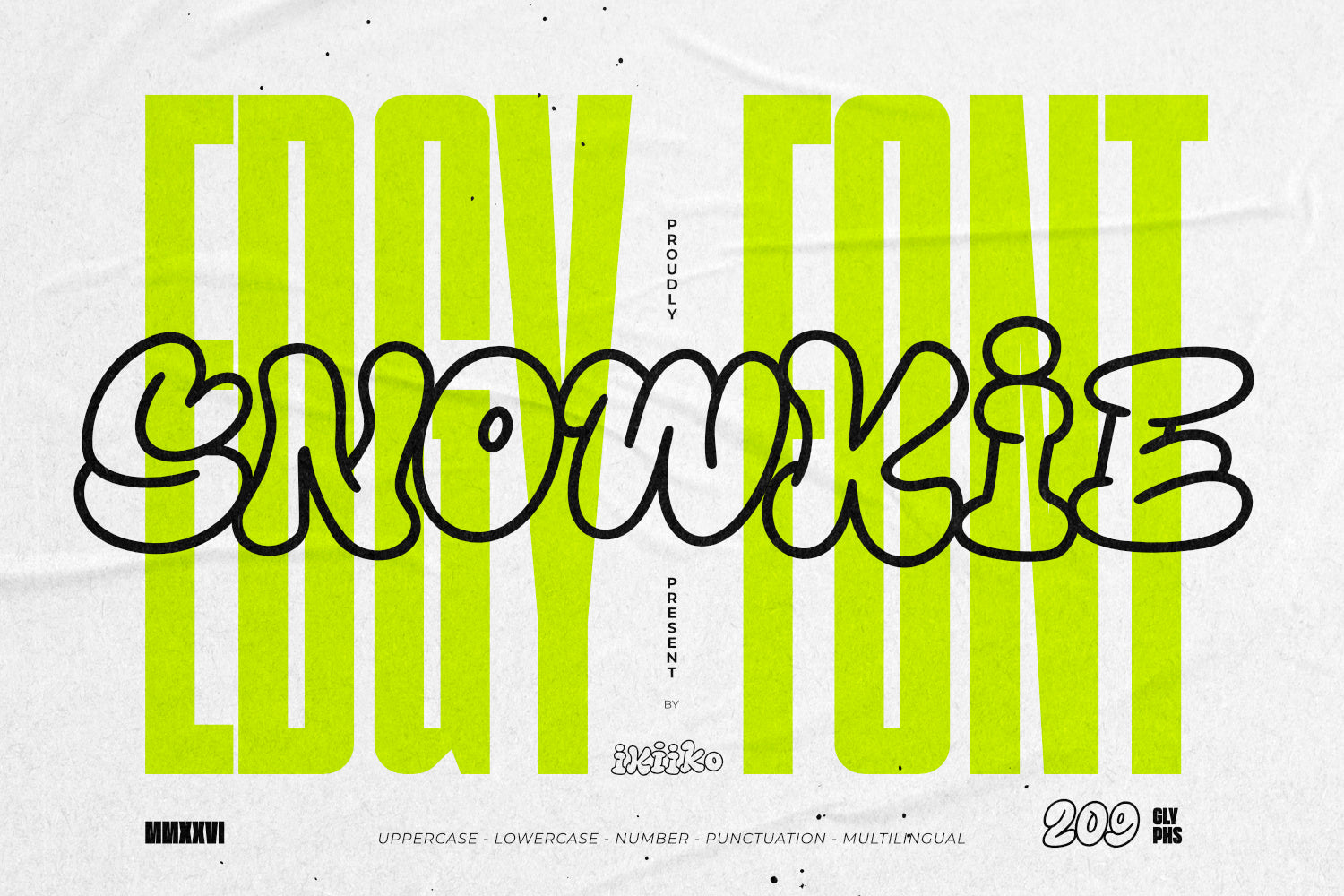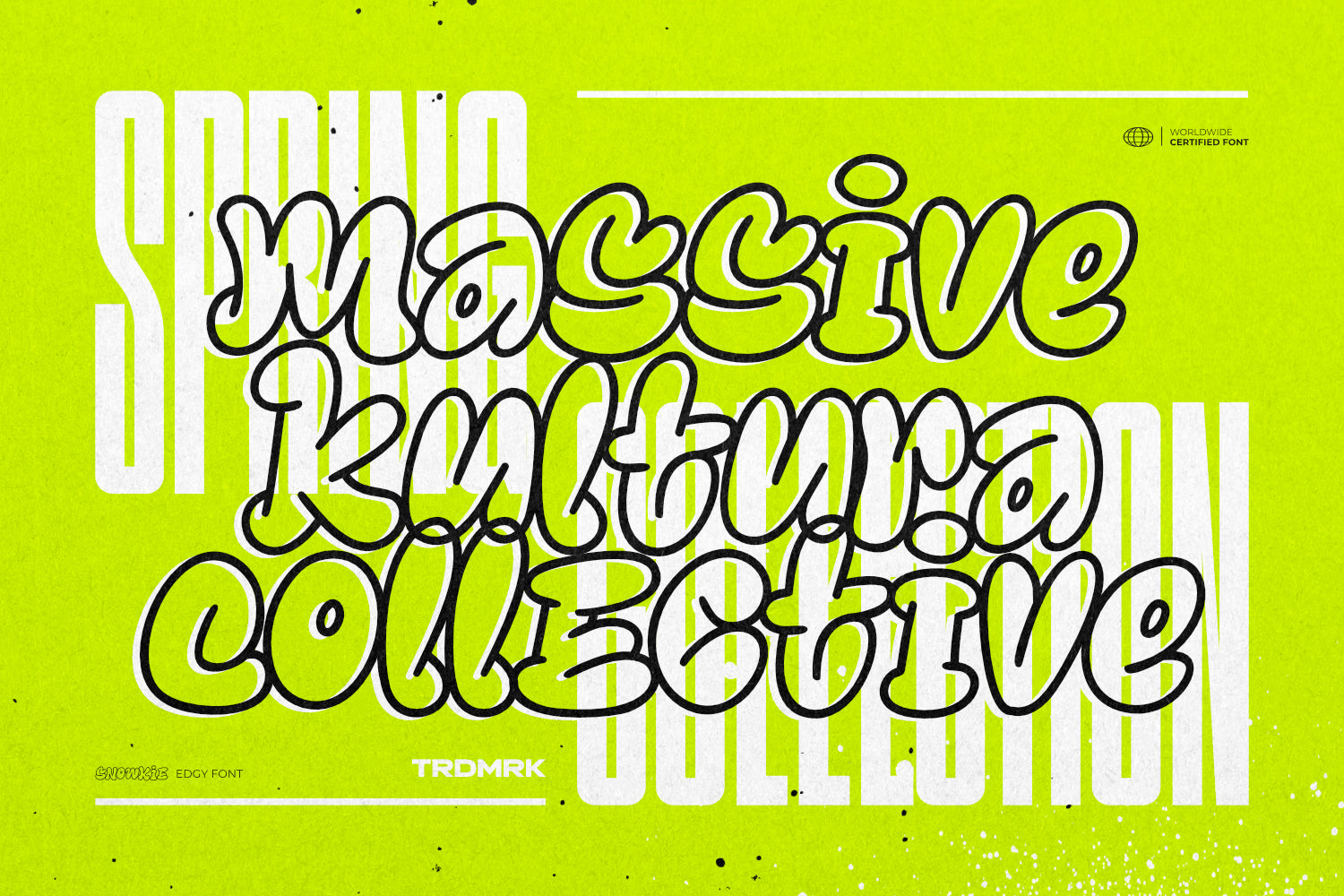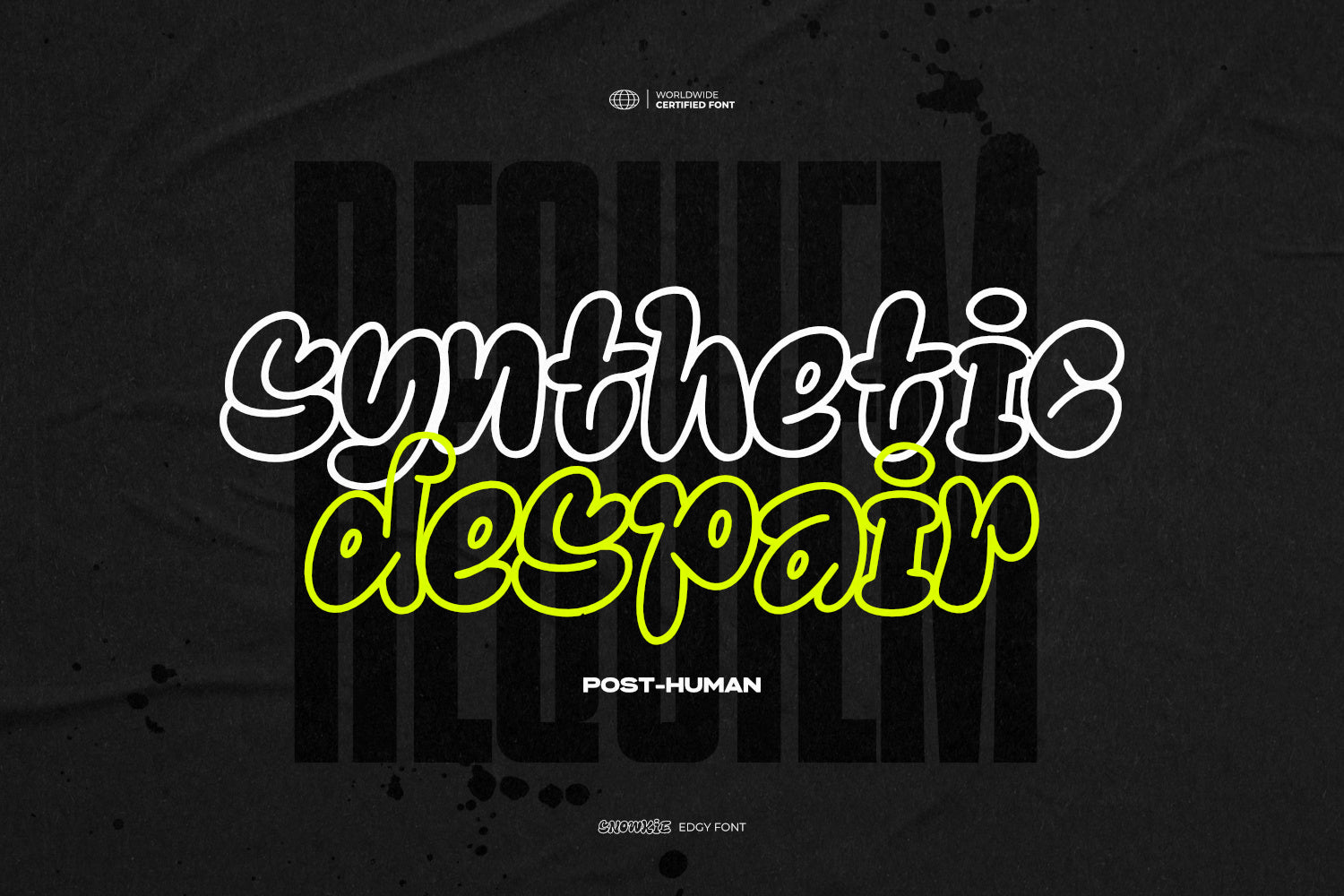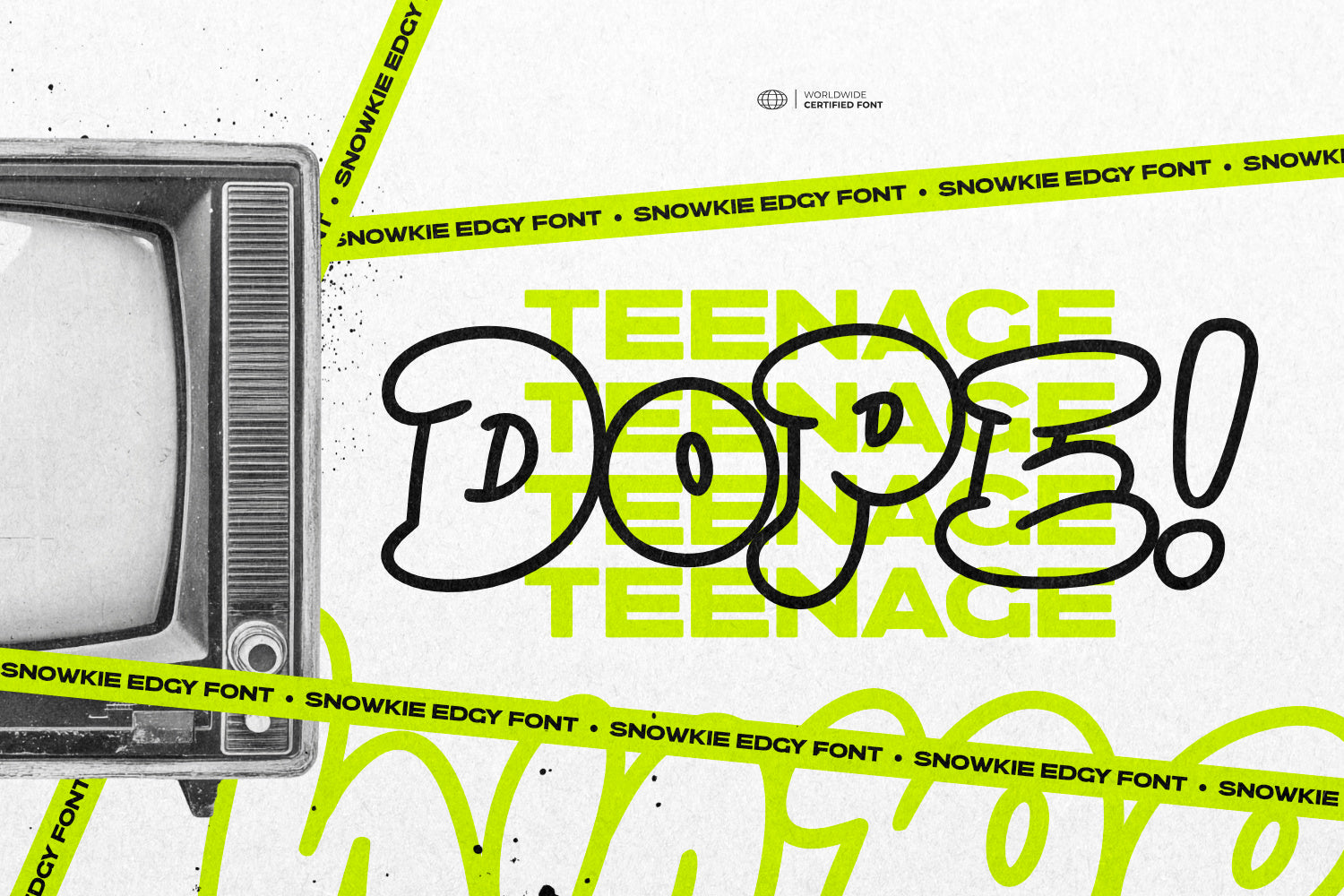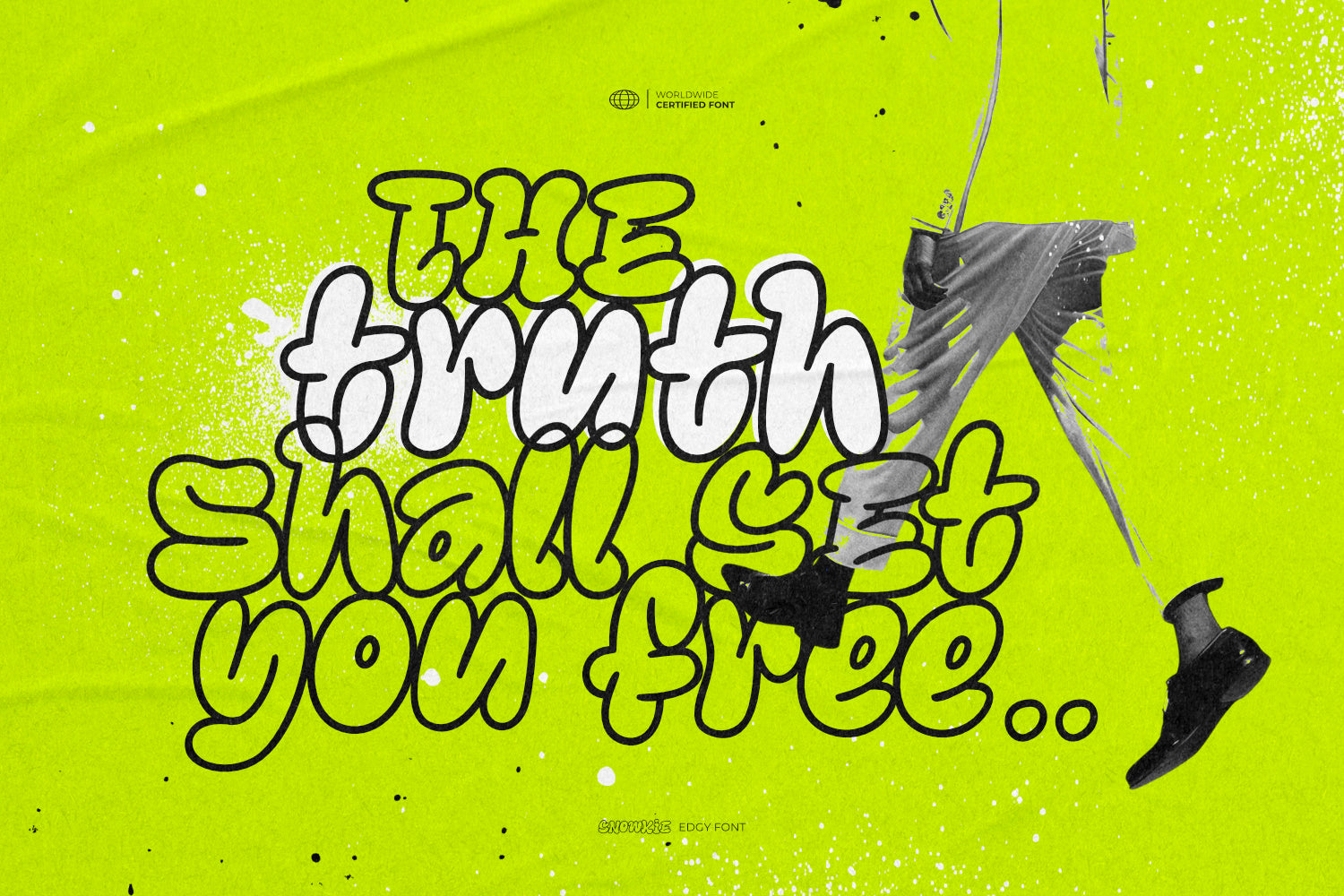
Proudly present Snowkie - Edgy Font, created by ikiiko.
Snowkie is an edgy outline style font with a raw hand-drawn feel, built straight from the pulse of street culture. Influenced by underground graffiti, rebellious visuals, and expressive lettering, Snowkie delivers an unapologetic edgy style that stands out loud and bold.
Each character in Snowkie is carefully crafted with an outline style that gives the font a lightweight yet aggressive presence. The hand drawn texture adds imperfect details, making every letter feel alive, organic, and authentic—perfect for designers who want to break away from clean, corporate typography.
Rooted in street culture, Snowkie channels the energy of urban walls, sketchbooks, and late-night graffiti sessions. Its edgy personality makes it ideal for posters, apparel designs, branding, social media visuals, and experimental layouts that demand attention.